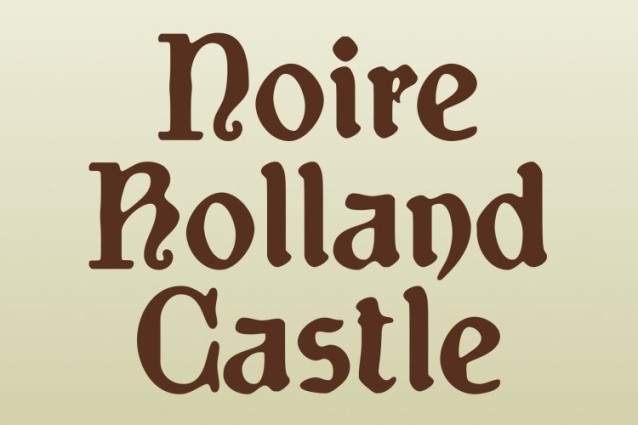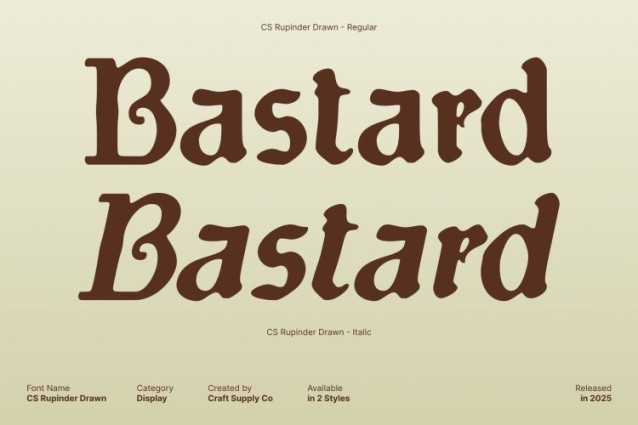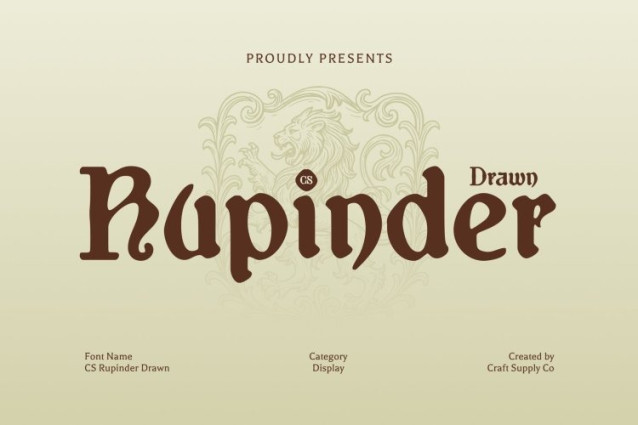
CS Rupinder Drawn Font
CS Rupinder Drawn Font This is a gothic display font that merges classic uncial decorative forms with bold, expressive shapes. Its sharp angles and ornate detailing convey a sense of drama and sophistication, making it perfect for projects that require a striking, historically inspired typographic presence.
Hand-Drawn Texture for Artistic Depth
The subtle drawn handmade touch adds organic variations and a handcrafted feel, softening the rigid gothic structure while enhancing visual interest. This texture gives the font personality and uniqueness, turning each letter into a lively, artistic element that feels both authentic and expressive.
Versatile for Bold and Dramatic Designs
This is ideal for book covers, artistic branding, posters, and other display projects that aim to captivate with a mysterious or dramatic flair. The combination of classic uncial elegance and handcrafted detailing ensures a distinctive, memorable typographic voice.
Perfect for Mysterious, Artistic, and Creative Projects
Whether used in editorial layouts, cultural designs, or visually bold campaigns, this font delivers a balance of gothic precision and handmade artistry. It evokes history, creativity, and intrigue while providing a strong, expressive identity for any project seeking uniqueness and impact.